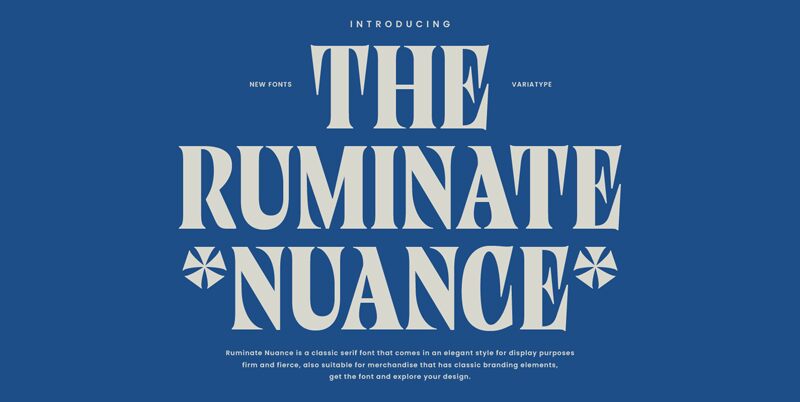
Ruminate Nuance font by Variatype is an impactful serif font suitable for both personal and commercial use. Instantly recognizable, the font was designed to have an authoritative, impactful, sophisticated, and elegant feel to it. With its unique presence and dramatic classic design, it is inspired by vintage serif fonts, yet it manages to appear modern, strong, and fashionable in any composition. This is a great font for headers, titles, or smaller text.
The font is suitable for headings, websites, and brochures. It is impactful in business proposals, reports, presentations, agreements, and advertising. Create engaging flyers, invitations, and posters as well. Pack both written and visual content with this font for social media, books, and magazines, or online platforms.